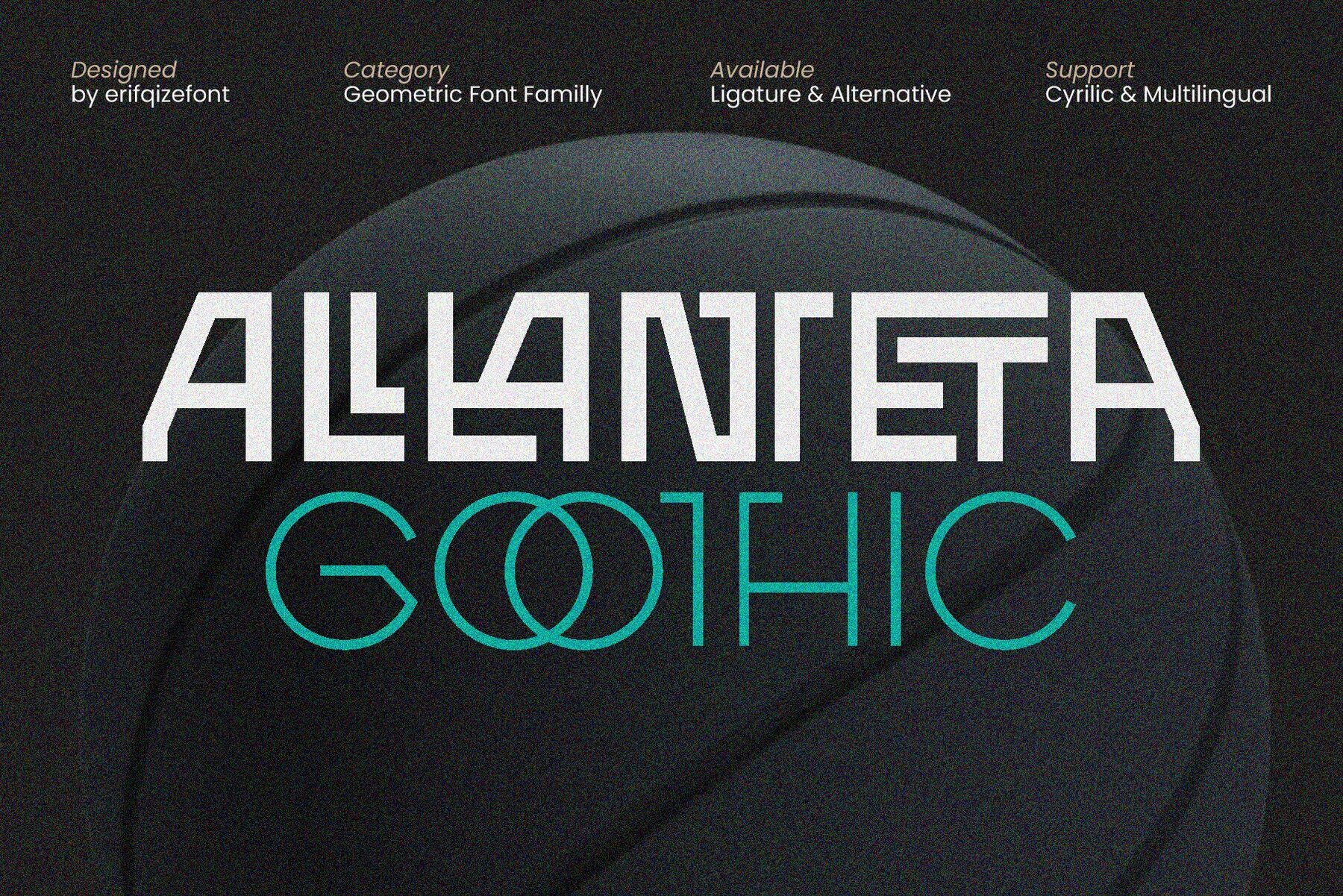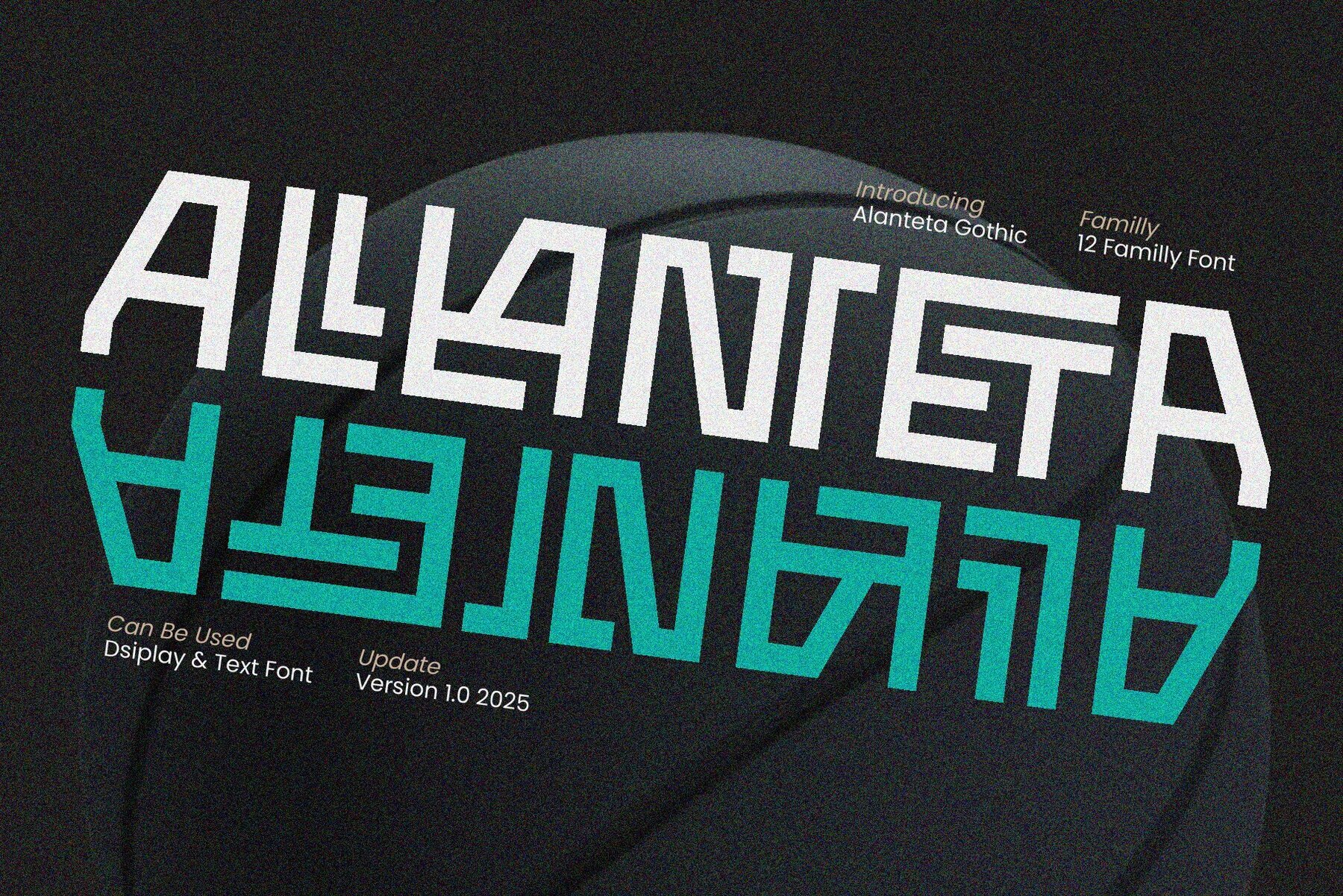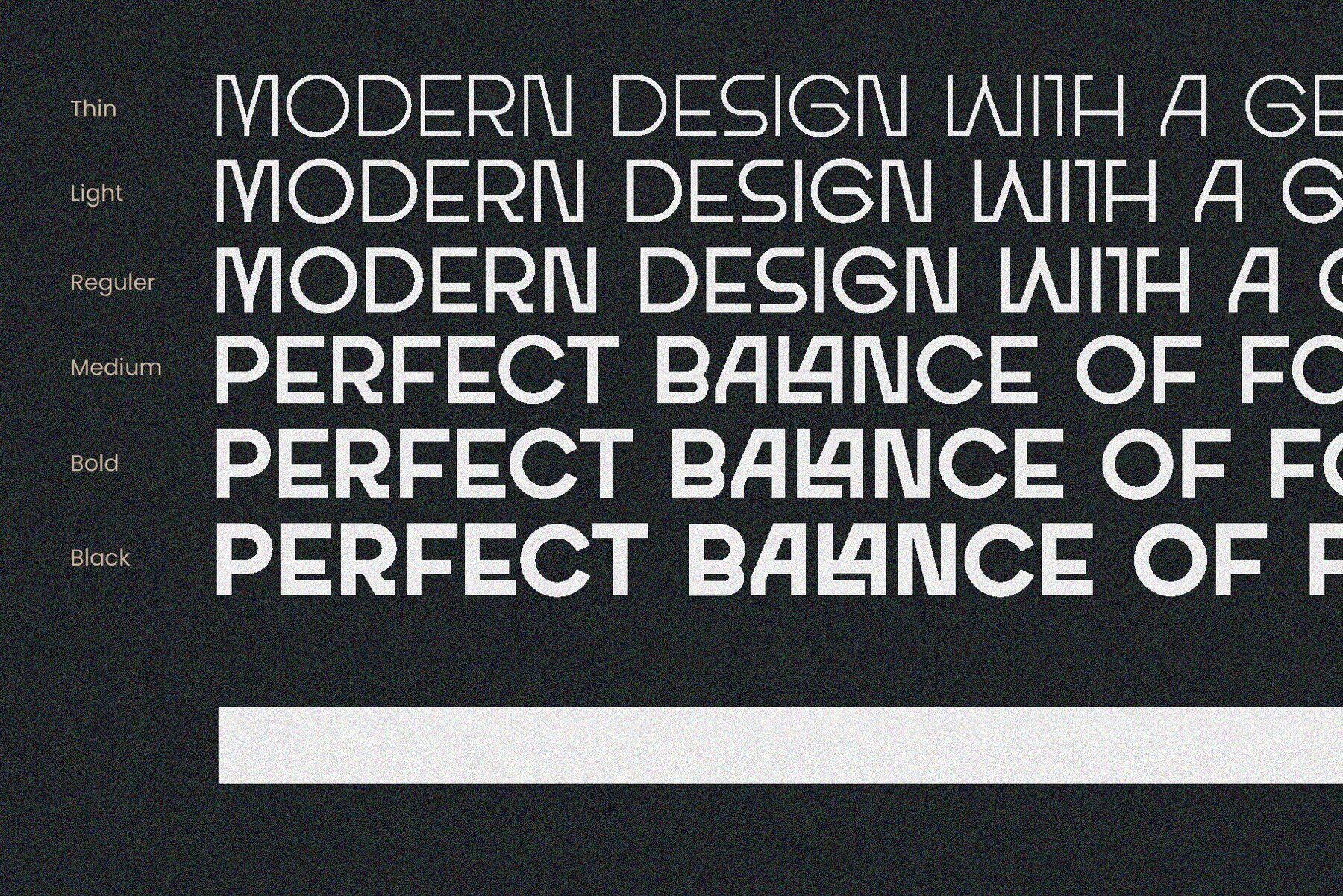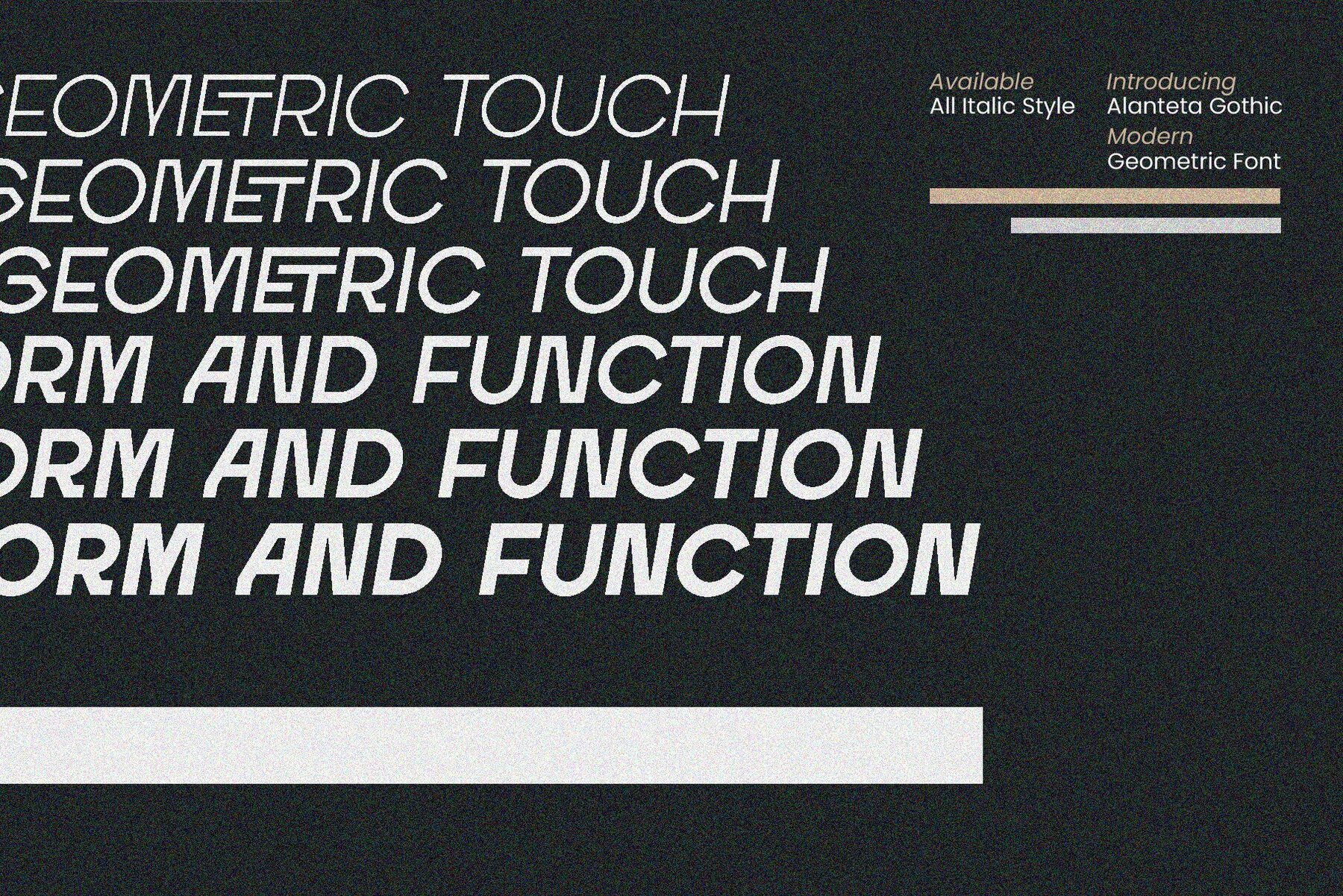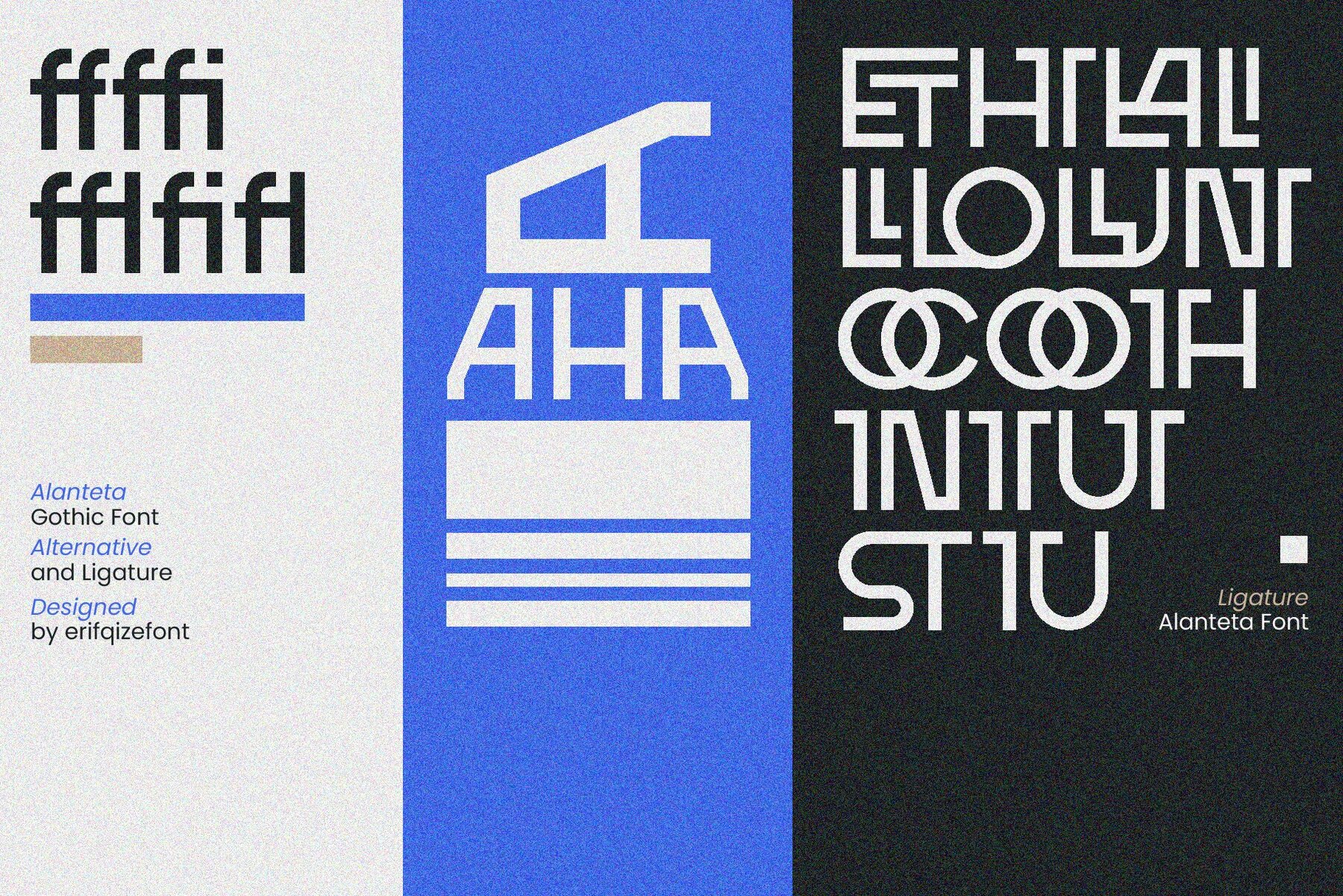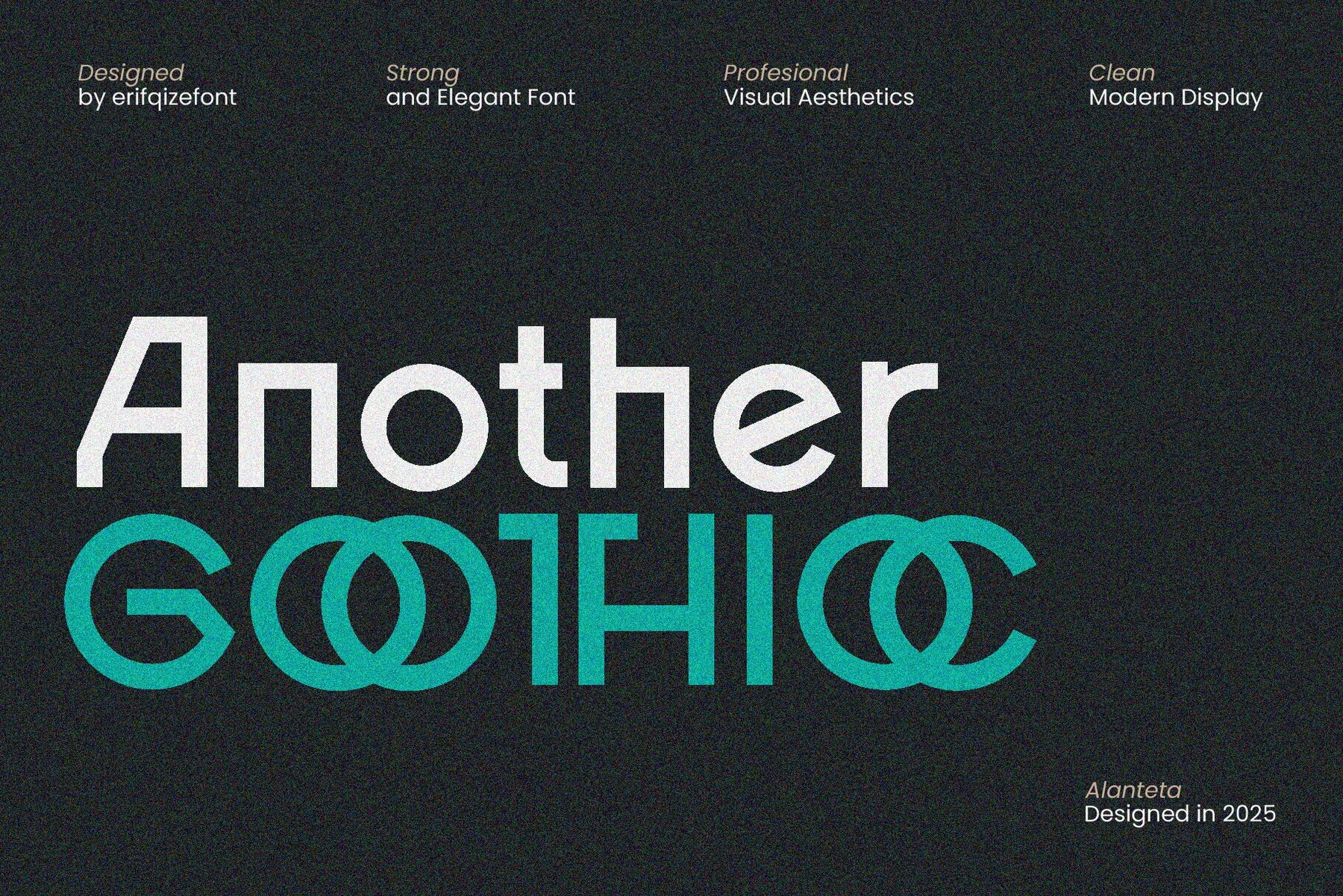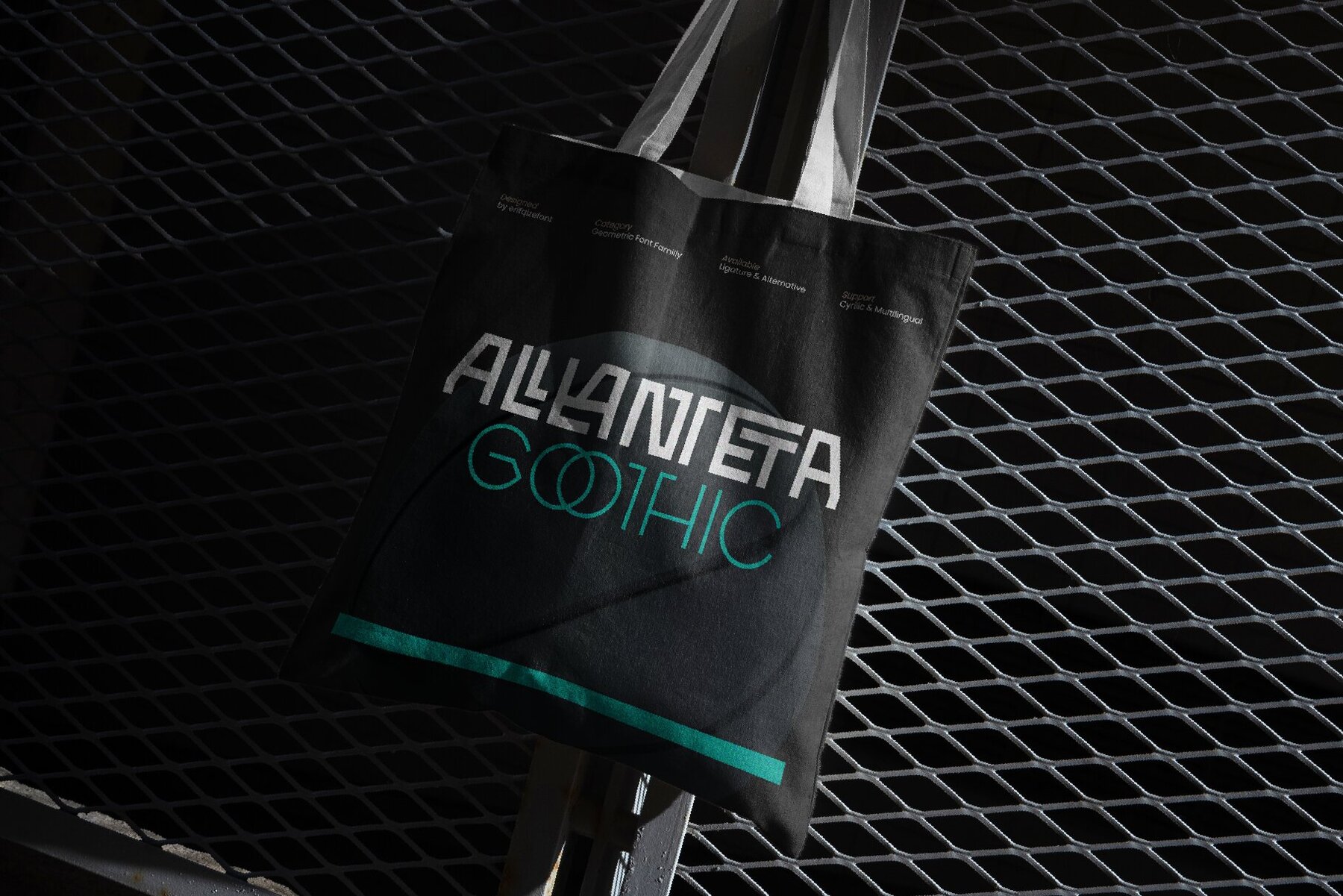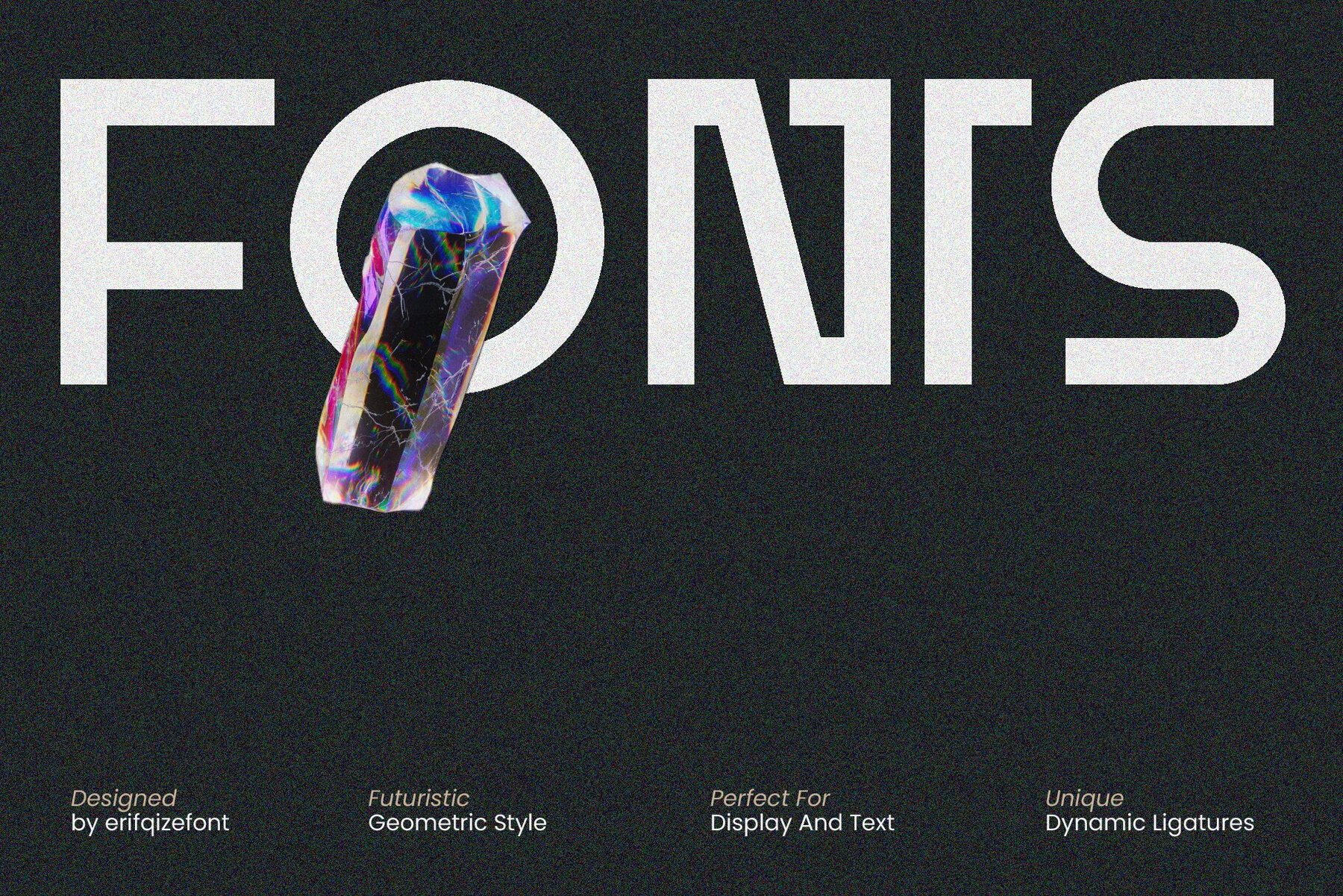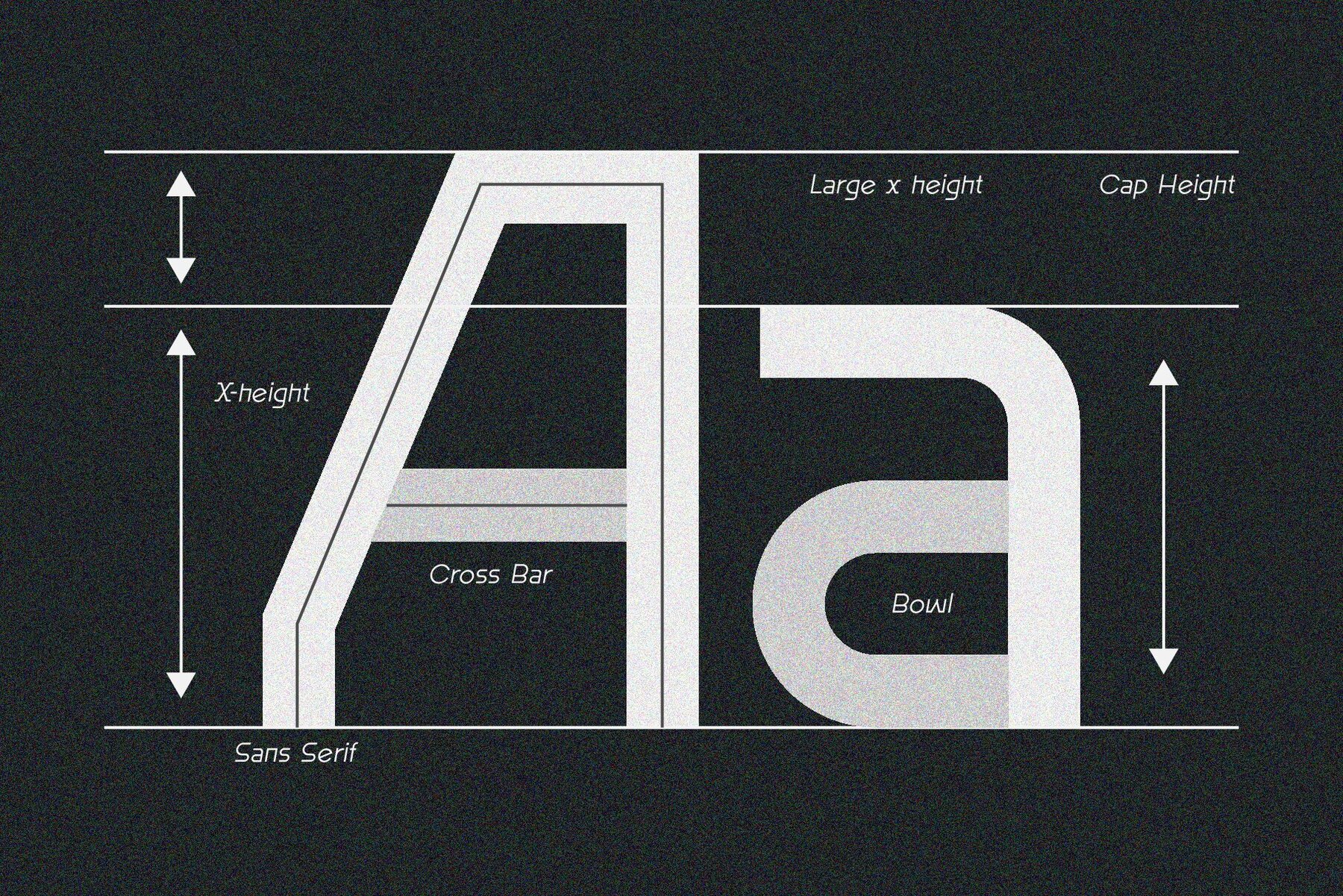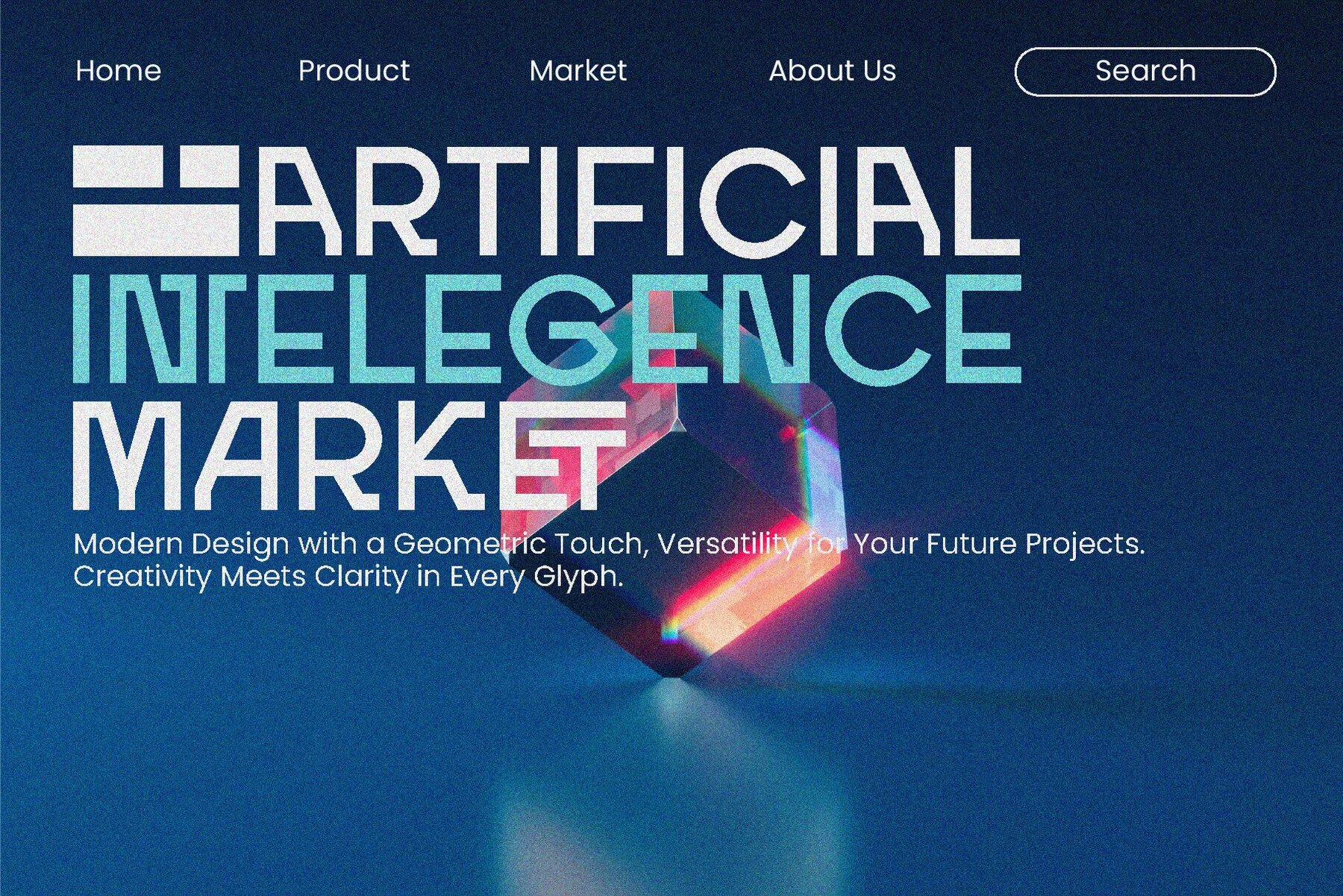
ERF Alanteta Gothic Font
ERF Alanteta Gothic embodies a clean, modern aesthetic that is ideal for contemporary design projects. Its geometric sans-serif structure is highlighted by distinctive ligatures, adding a dynamic touch that draws the eye. This font inherently stands out, ready to make an impact whether used in branding, editorial layouts, or digital interfaces. Supporting both Cyrillic and multilingual characters, ERF Alanteta Gothic offers unparalleled versatility with 12 distinct styles. This range provides the flexibility to transform your text from commanding headlines to highly legible body copy, adapting effortlessly to the demands of various creative projects. Make a bold statement with ERF Alanteta Gothic, where modern design meets timeless functionality.ERF Alanteta Gothic: A Futuristic Sans-Serif